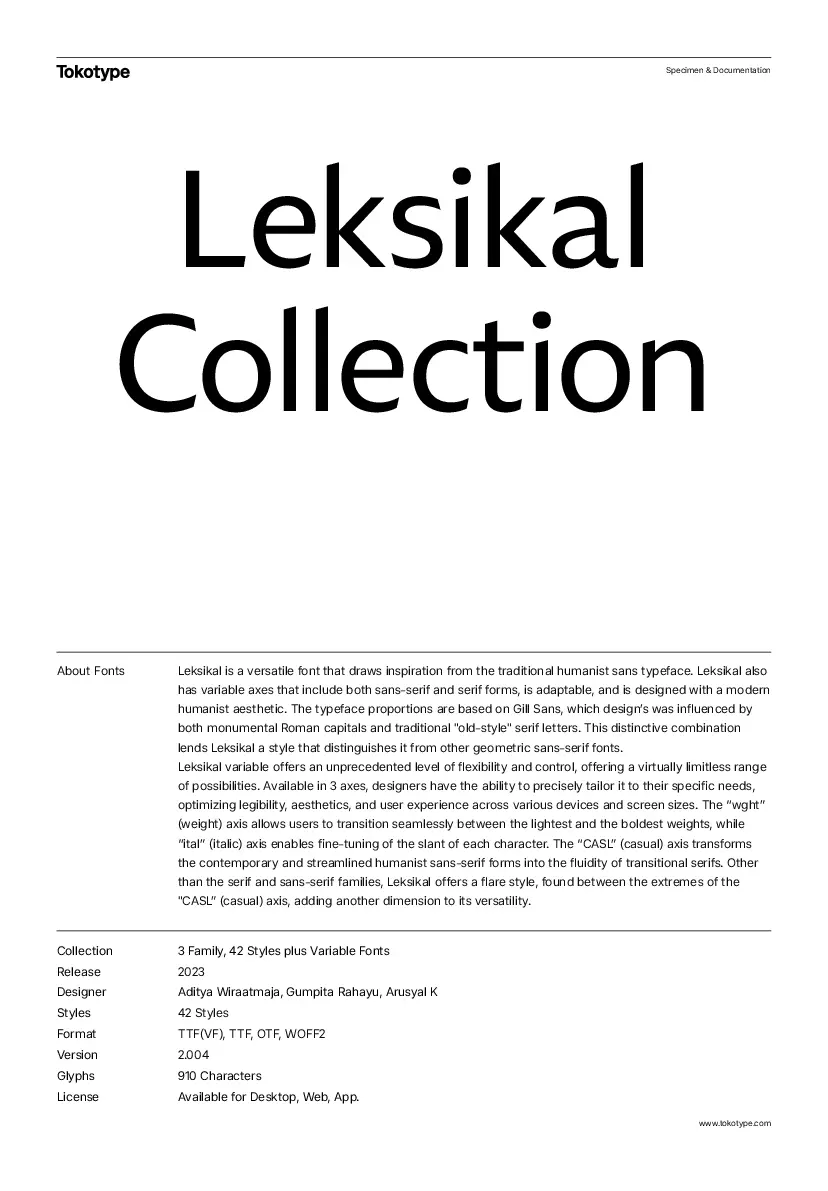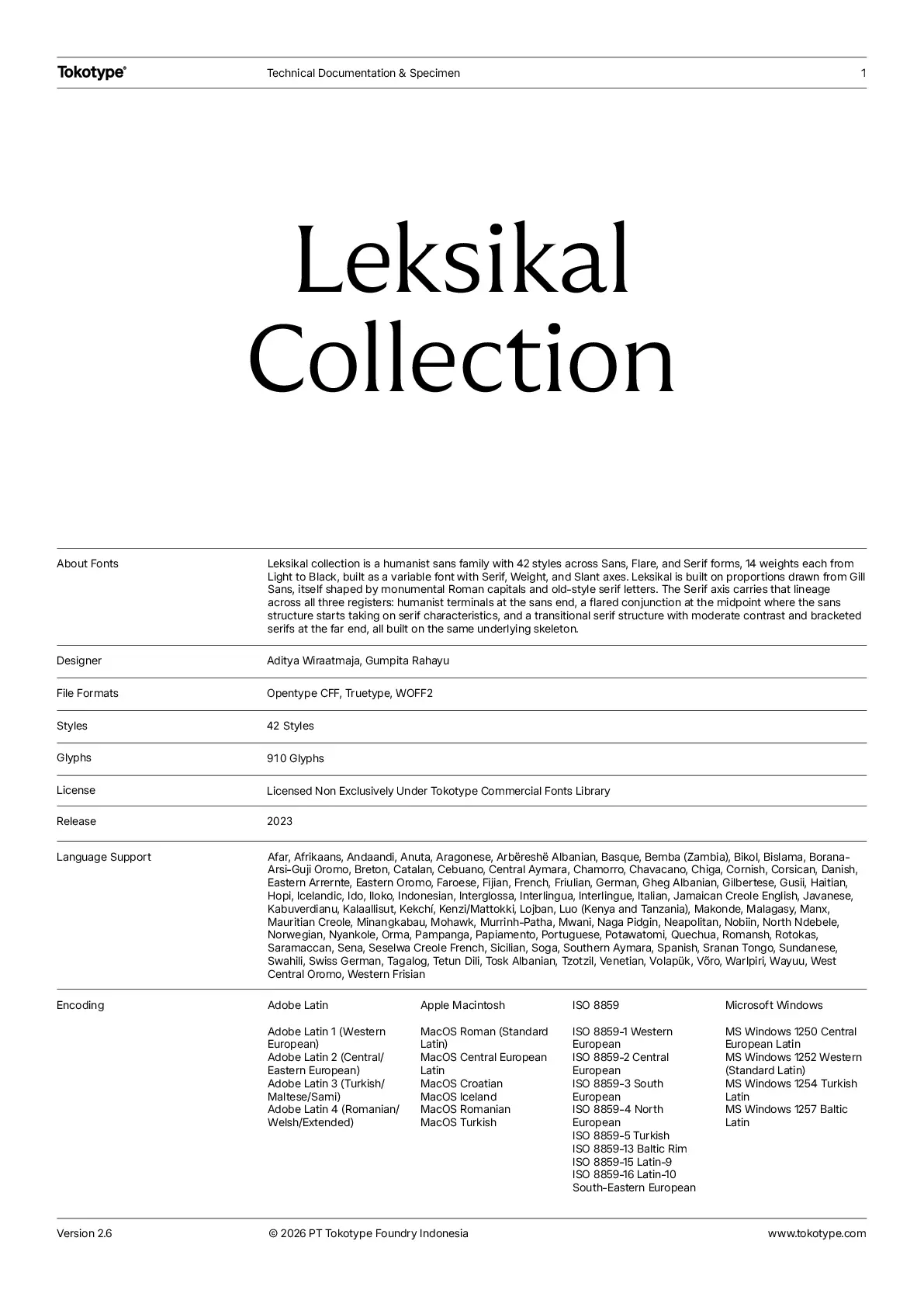
Leksikal Collection
Leksikal collection is a humanist sans family with 42 styles across Sans, Flare, and Serif forms, 14 weights each from Light to Black, built as a variable font with Serif, Weight, and Slant axes. Leksikal is built on proportions drawn from Gill Sans, itself shaped by monumental Roman capitals and old-style serif letters. The Serif axis carries that lineage across all three registers: humanist terminals at the sans end, a flared conjunction at the midpoint where the sans structure starts taking on serif characteristics, and a transitional serif structure with moderate contrast and bracketed serifs at the far end, all built on the same underlying skeleton.